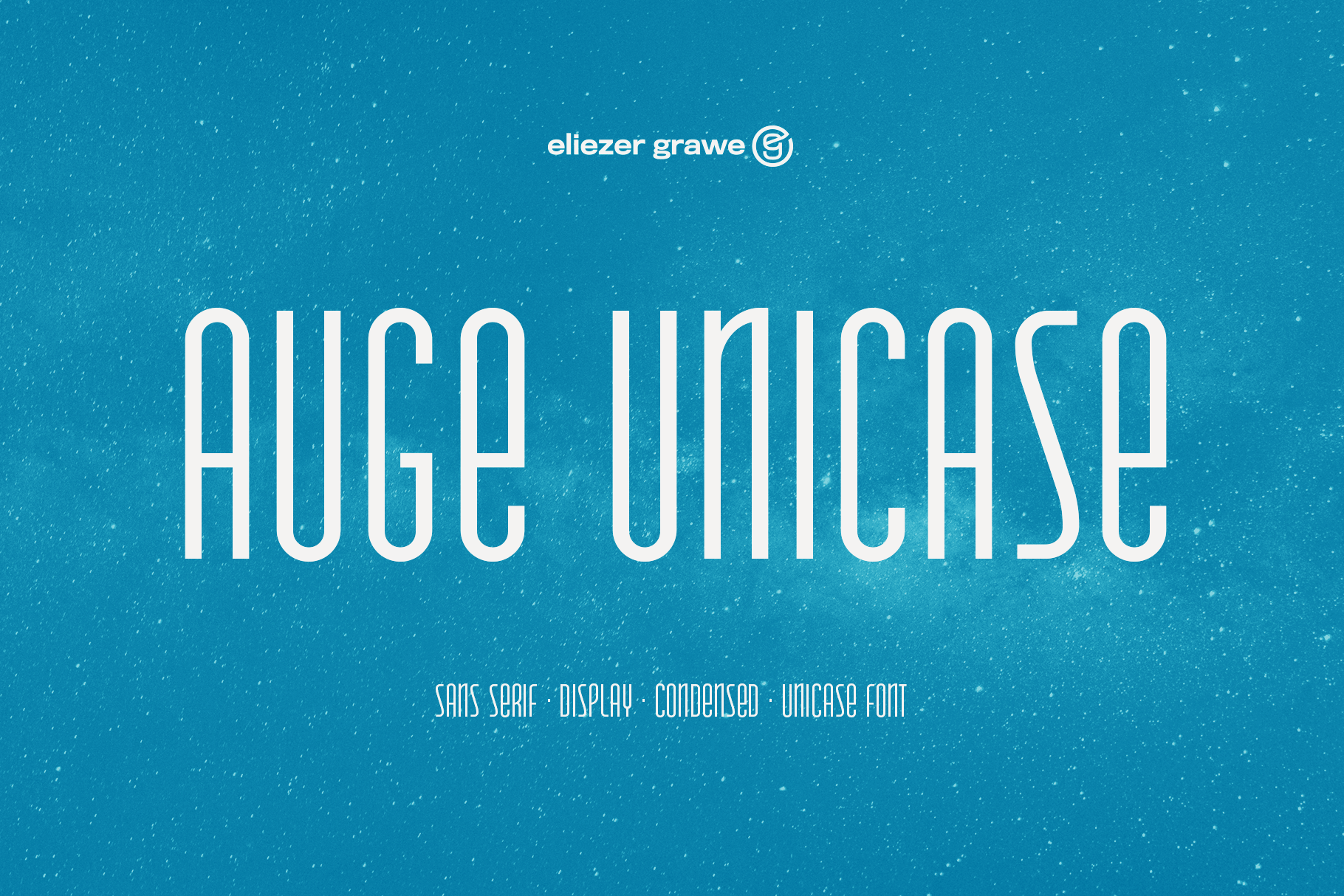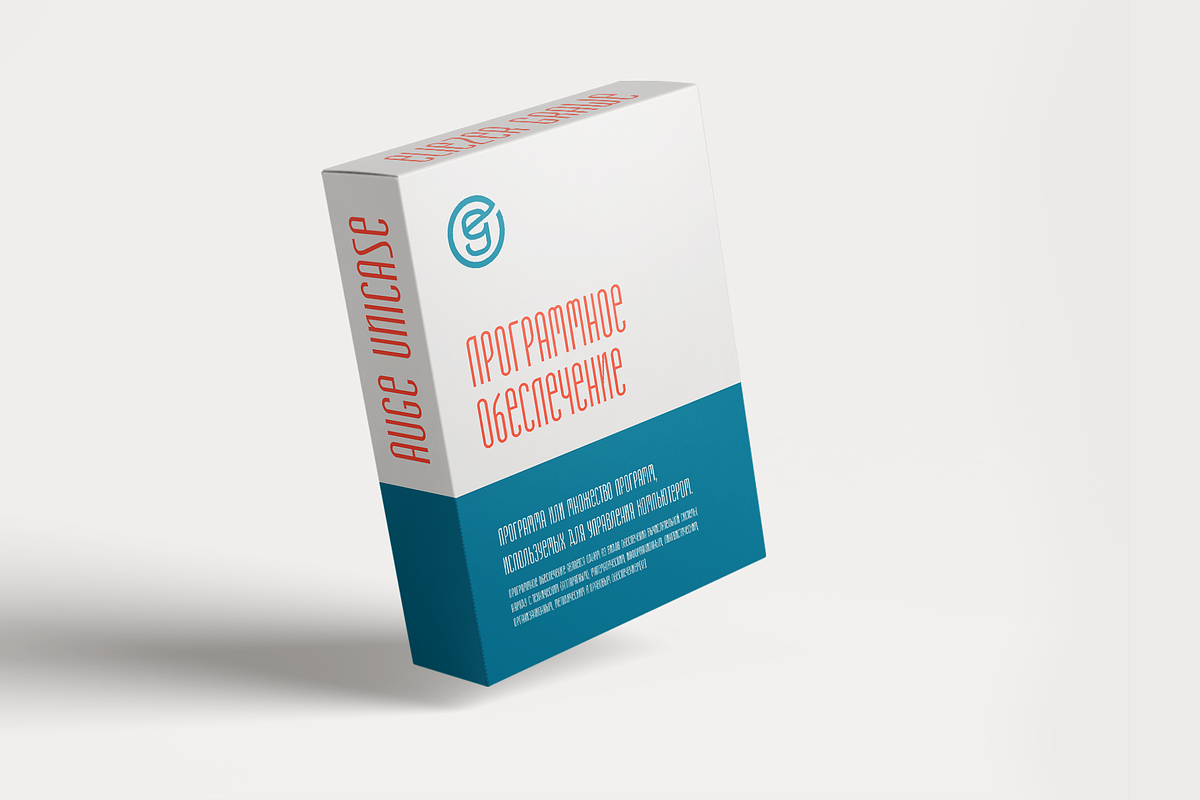
Auge Unicase Font
Auge Unicase is a sans serif display font, extra-condensed, with a unicase style. Unicase are all caps fonts that mix upper and lowercase forms.
Auge Unicase is geometric and very modular which gives it a sense of standardization and a rational feeling. Nevertheless, its forms have a retro construction, which brings a "modern-vintage" aspect. It is best suited for titles and short texts. Good for labels, packaging, signage, logos, t-shirts, caps and the like.
Auge Unicase came in regular (upright) and oblique (italic). Has 757 glyphs, a set of alternates, accessible by contextual alternates and stylistic set. It was designed following the Underware Latin Plus character set, supporting 219 Latin based languages (see https://underware.nl/latin_plus/languages/) and has Cyrillic support.